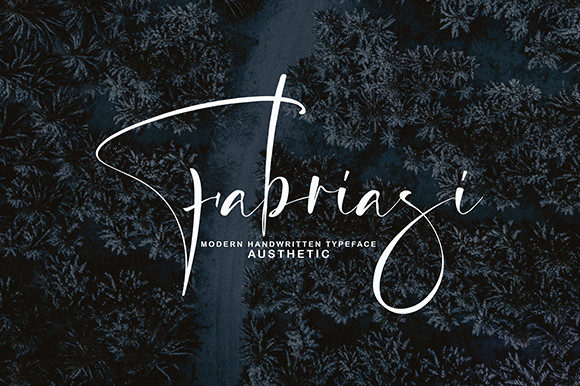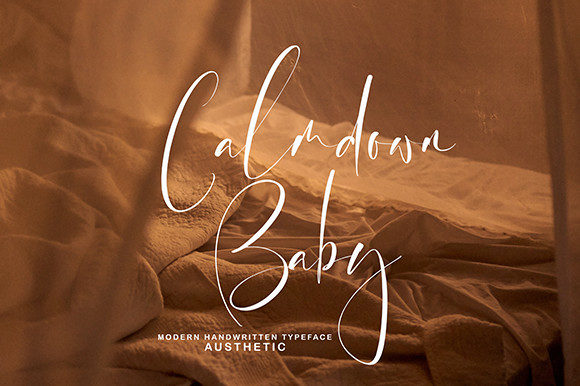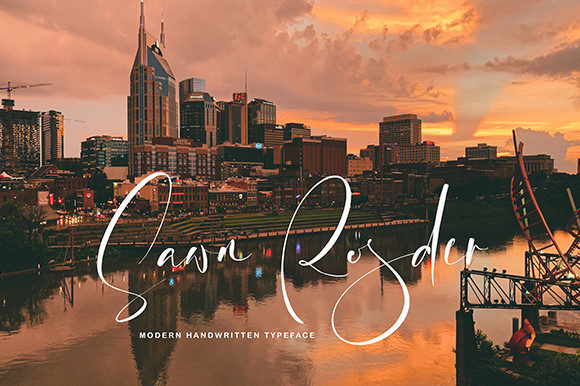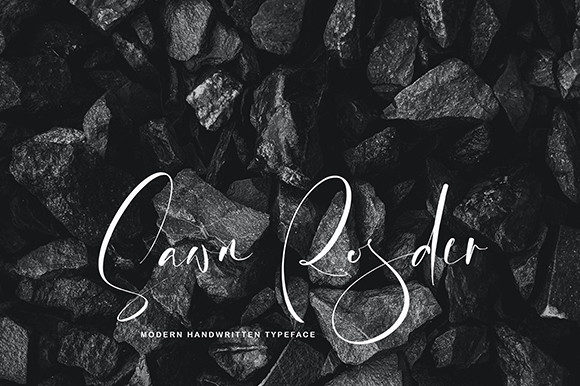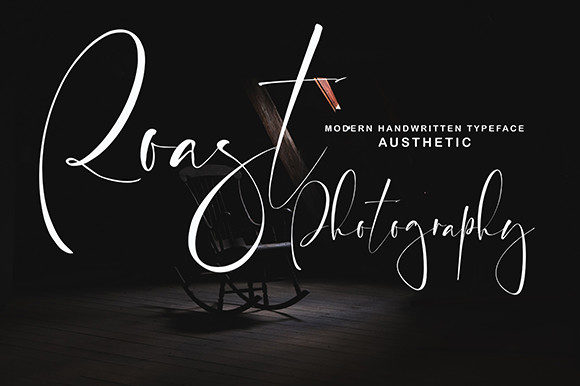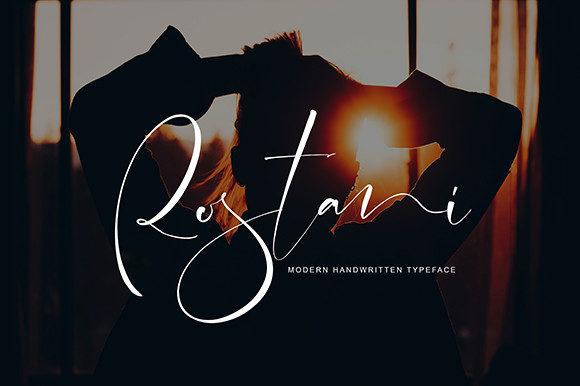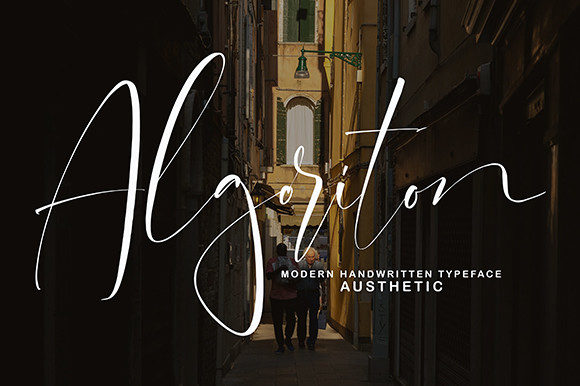
Introducing Algoriton Font: Elevate Your Designs with a Beautiful Handwritten Style
Are you tired of using the same old fonts in your designs? Look no further! Algoriton Font is here to revolutionize the way you create. This stunning handwritten font is perfect for designers and crafters who want to add a personal touch to their projects. With its unique style and feel, Algoriton is sure to become your new favorite font.
What Makes Algoriton Font So Special?
Algoriton Font is a masterfully designed font that boasts a beautiful handwritten style. Its elegant and fluid lines make it perfect for a wide range of projects, including quotes, logos, blog headers, posters, branding, letters, invitations, stationery, and more. Whether you’re a professional designer or a crafty DIY enthusiast, Algoriton Font has the potential to bring each of your creative ideas to the highest level.
One of the best things about Algoriton Font is its versatility. Its unique style makes it suitable for a wide range of projects, including:
- Quotes: Add a touch of elegance to your inspirational quotes and sayings.
- Logos: Create a memorable brand identity with a custom logo featuring Algoriton Font.
- Blog Headers: Make your blog stand out with a beautiful header that showcases Algoriton Font.
- Posters: Create eye-catching posters that grab attention with Algoriton Font.
- Branding: Use Algoriton Font to create a consistent brand image across all your marketing materials.
- Letters: Add a personal touch to your letters and correspondence.
- Invitations: Create beautiful and elegant invitations for special occasions.
- Stationery: Elevate your stationery with a touch of sophistication and style.
Why Choose Algoriton Font?
So, why should you choose Algoriton Font for your next project? Here are just a few reasons:
- Unique Style: Algoriton Font has a unique and distinctive style that will set your designs apart from the rest.
- Elegant and Sophisticated: Algoriton Font exudes elegance and sophistication, making it perfect for projects that require a touch of class.
- Easy to Read: Despite its elegant style, Algoriton Font is easy to read, making it perfect for body text and captions.
- Highly Versatile: Algoriton Font can be used for a wide range of projects, from digital designs to print materials.
Tips for Using Algoriton Font
Here are a few tips for getting the most out of Algoriton Font:
- Experiment with Different Sizes: Algoriton Font looks great in a variety of sizes, from large headings to small body text.
- Pair it with Other Fonts: Try pairing Algoriton Font with other fonts to create a unique and interesting contrast.
- Use it for Headings and Titles: Algoriton Font is perfect for headings and titles, where its elegant style can really shine.
In conclusion, Algoriton Font is a beautiful handwritten font that is perfect for designers and crafters who want to add a personal touch to their projects. With its unique style and feel, Algoriton Font has the potential to bring each of your creative ideas to the highest level. Whether you’re working on a logo, blog header, poster, or any other project, Algoriton Font is sure to impress. So why wait? Download Algoriton Font today and start elevating your designs!